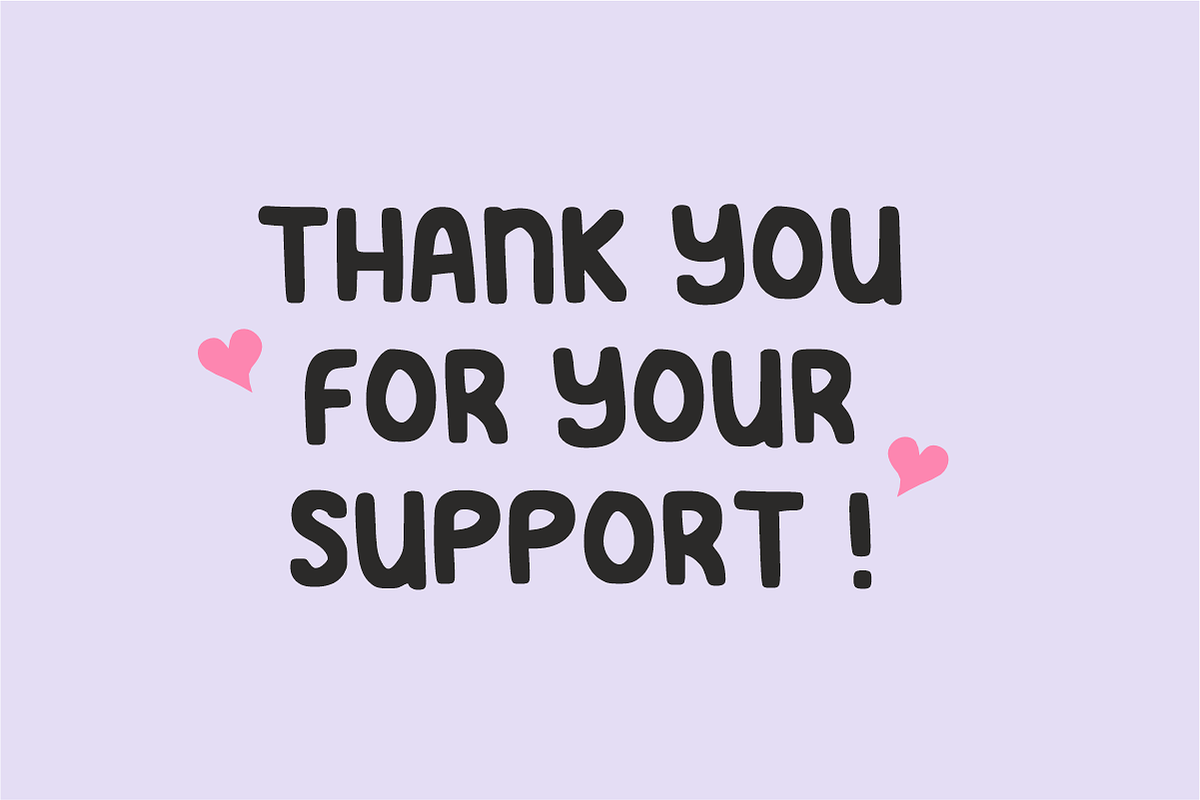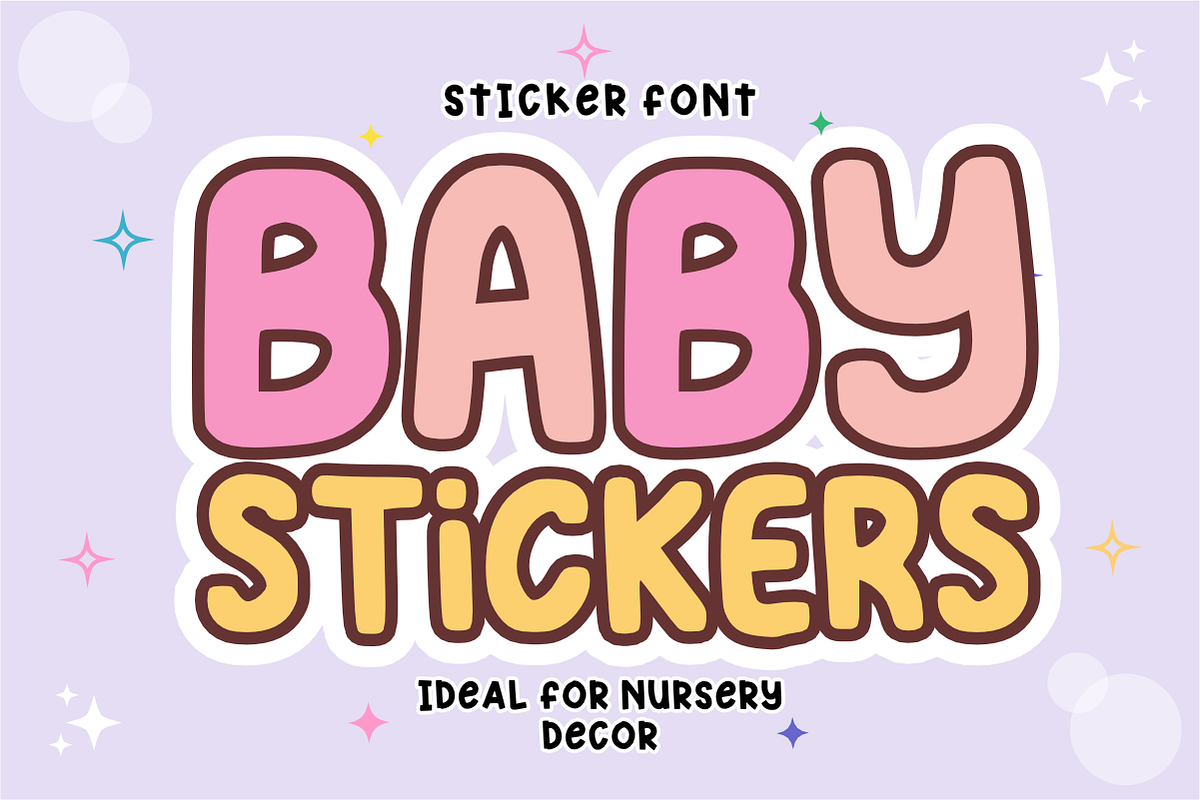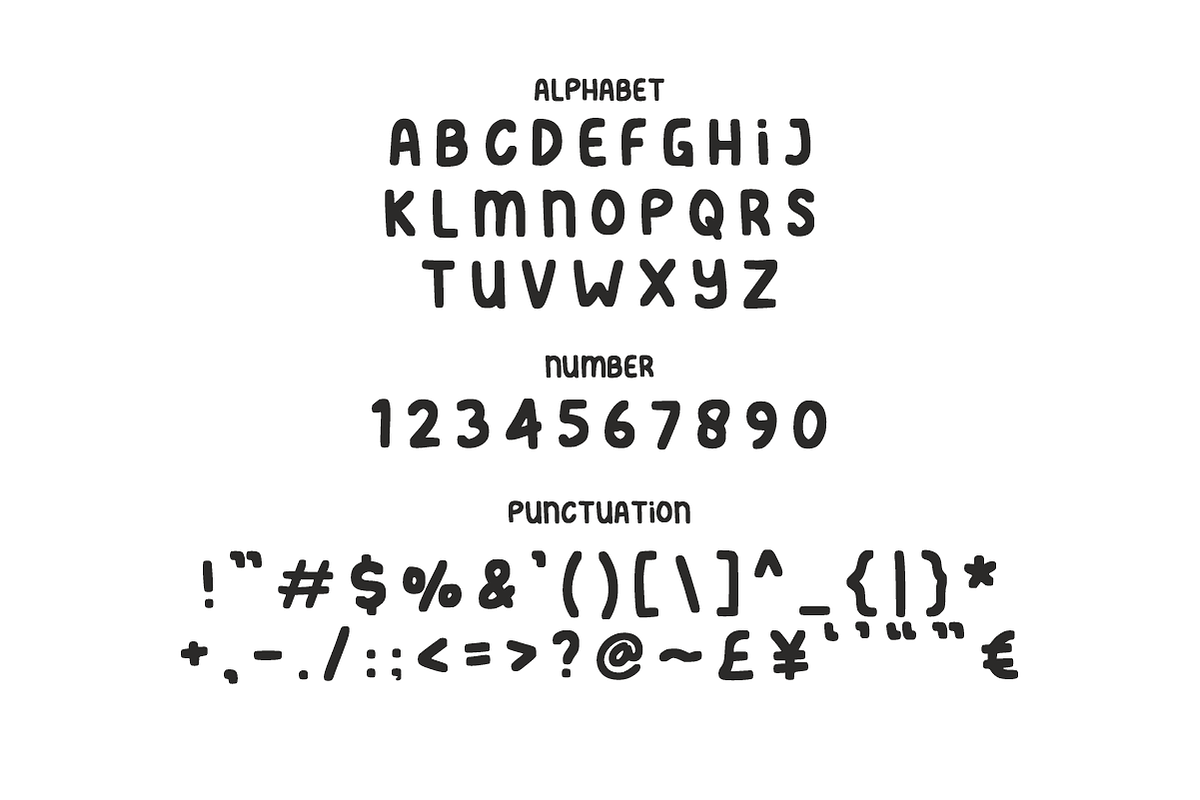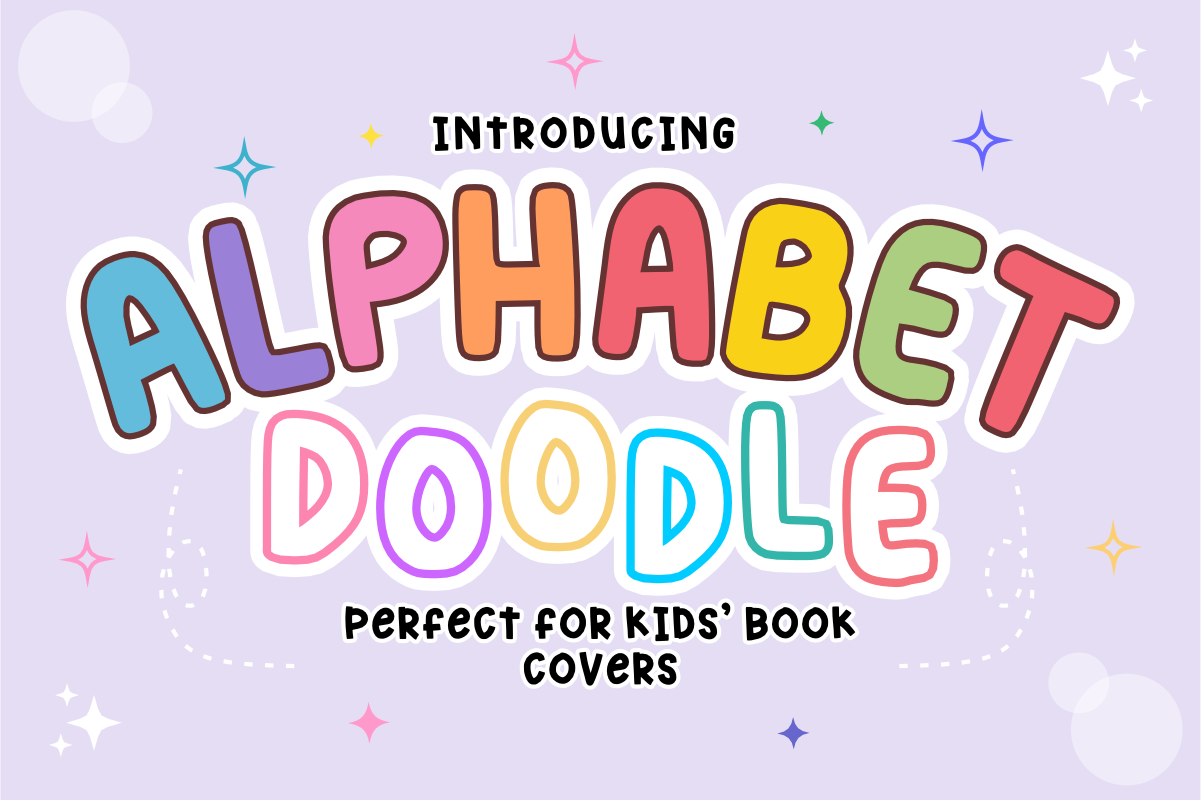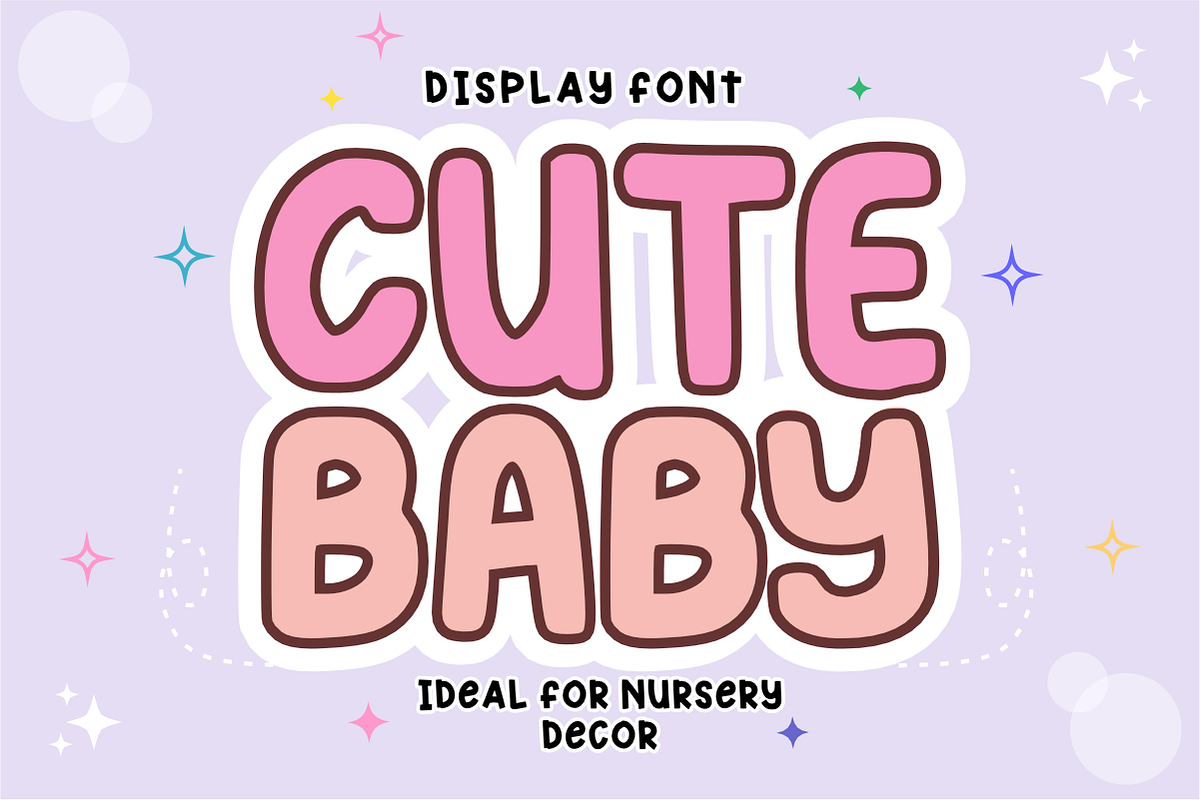
Alphabet Doodle - Kids Display Font
Alphabet Doodle - Playful Hand-Drawn Display Font
Bring a sense of wonder and whimsical charm to your projects with Alphabet Doodle! This bubbly, hand-drawn display font is designed with a soft, rounded aesthetic that captures a cheerful and engaging spirit. Its high legibility and friendly letterforms make it the ultimate choice for creators looking to add a touch of personality to their designs.
Whether you are crafting for the juvenile market or building a vibrant brand identity, Alphabet Doodle provides a versatile foundation for professional design. It is perfectly weighted to ensure your headlines stand out across both digital and print platforms with a clean, hand-crafted feel.
All-Caps Character Set (Rounded, playful uppercase letters)
Numbers & Basic Punctuation (Simple, essential symbols included)
Kids’ Book Covers & Educational Publishing 📚
Children’s Product Packaging & Toy Branding 🧸
Playful Brand Identities & Creative Logos 🎨
Social Media Graphics & Engaging Content Creation 📱
Vibrant Apparel Design & Youth Merchandise 👕